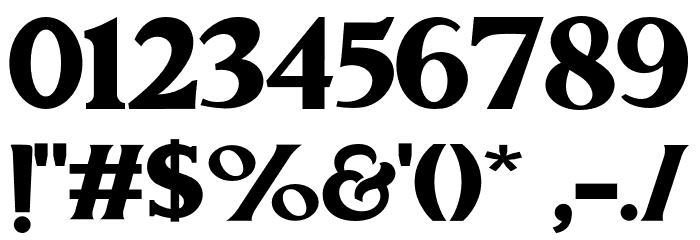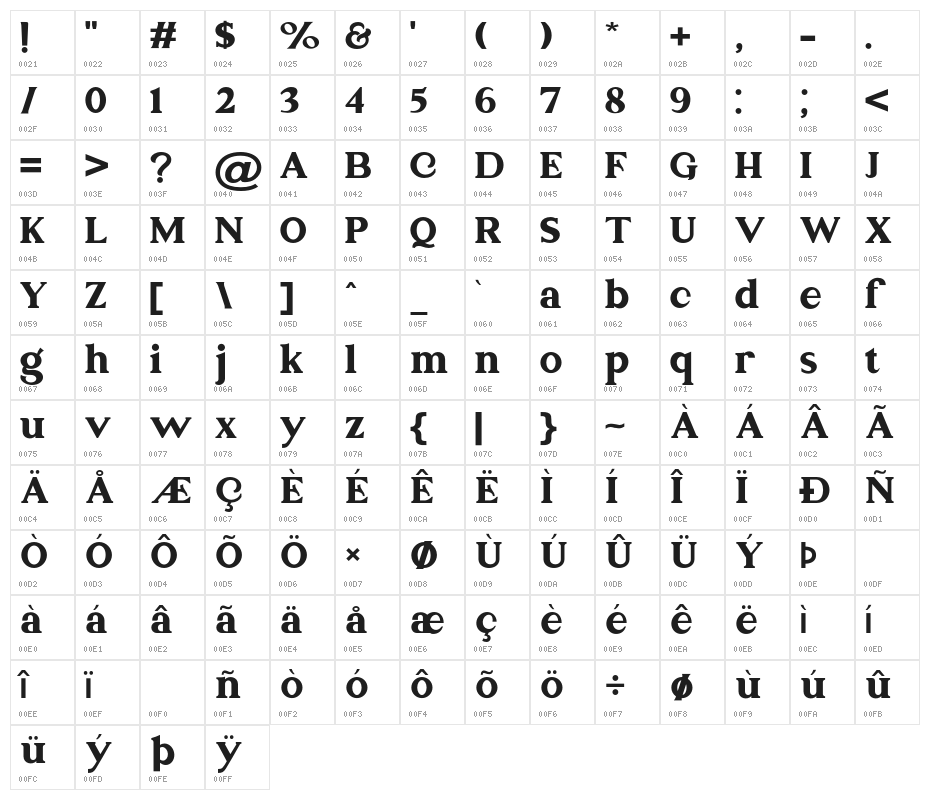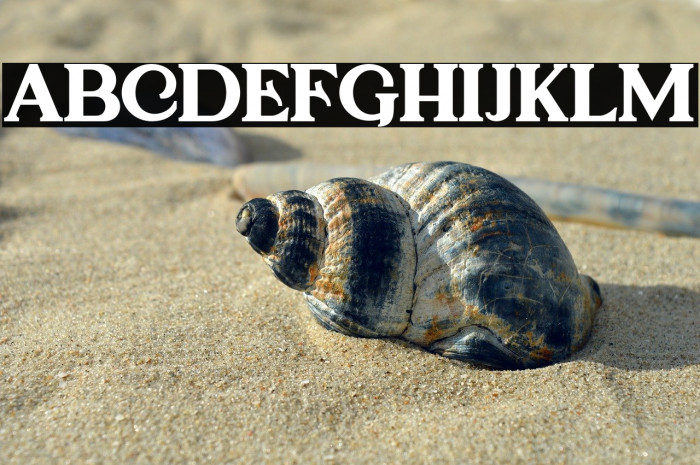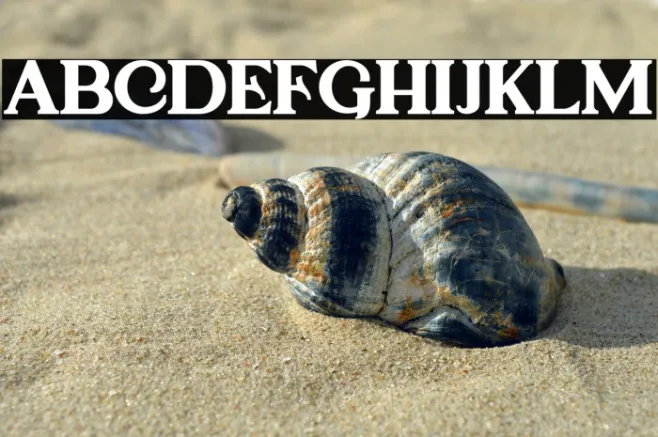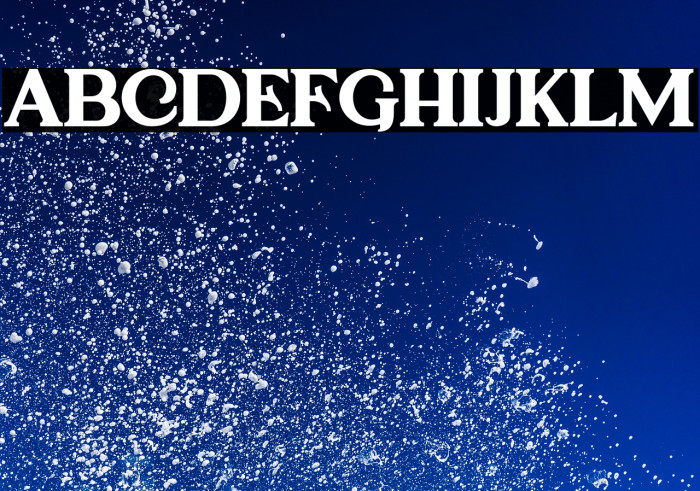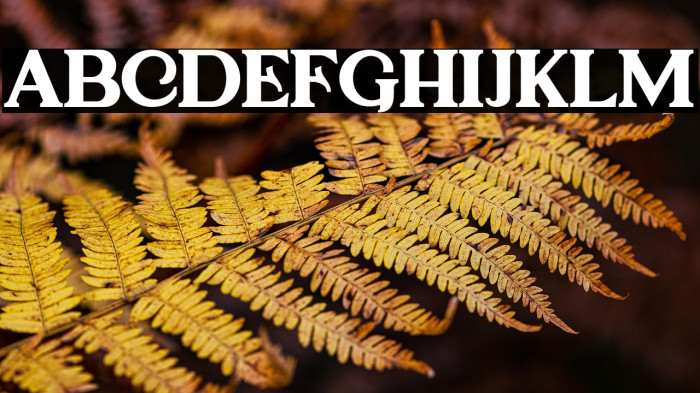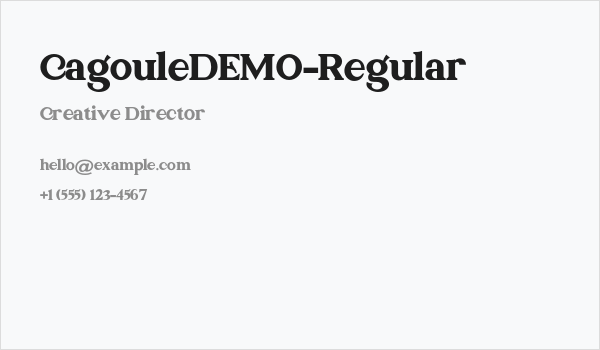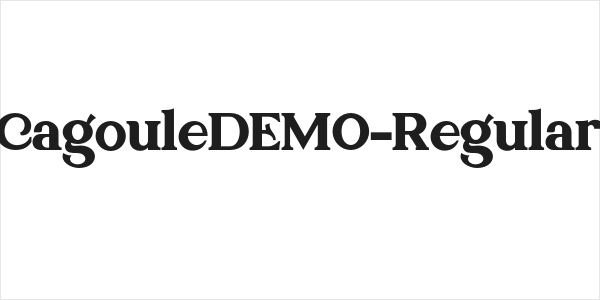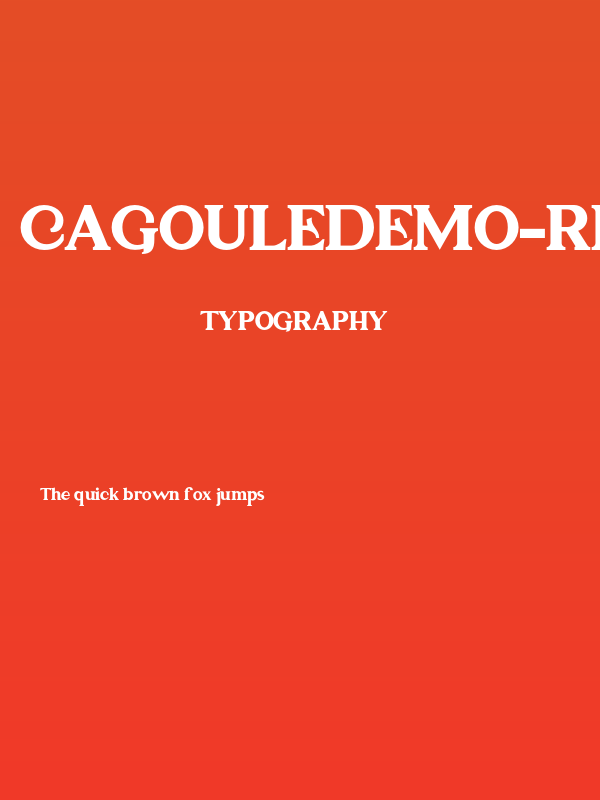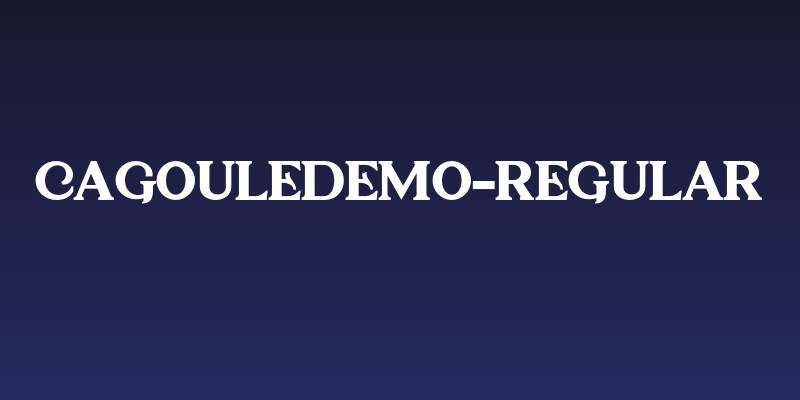
CagouleDEMO-Regular Font
CagouleDEMO-Regular Description
This font exhibits a bold and authoritative presence with its strong, thick strokes and classic serif design. The uppercase letters are prominent and commanding, while the lowercase letters maintain a consistent weight, offering a harmonious balance. The numerals are clear and legible, making them suitable for various applications. The special characters are well-defined, adding versatility to the font. The overall style is reminiscent of traditional serif fonts, yet it carries a modern twist that makes it suitable for contemporary use.
| Use Case | Headlines, Logos, Editorial design |
| Proposed Projects | Ideal for editorial design, book covers, branding, and formal invitations. |